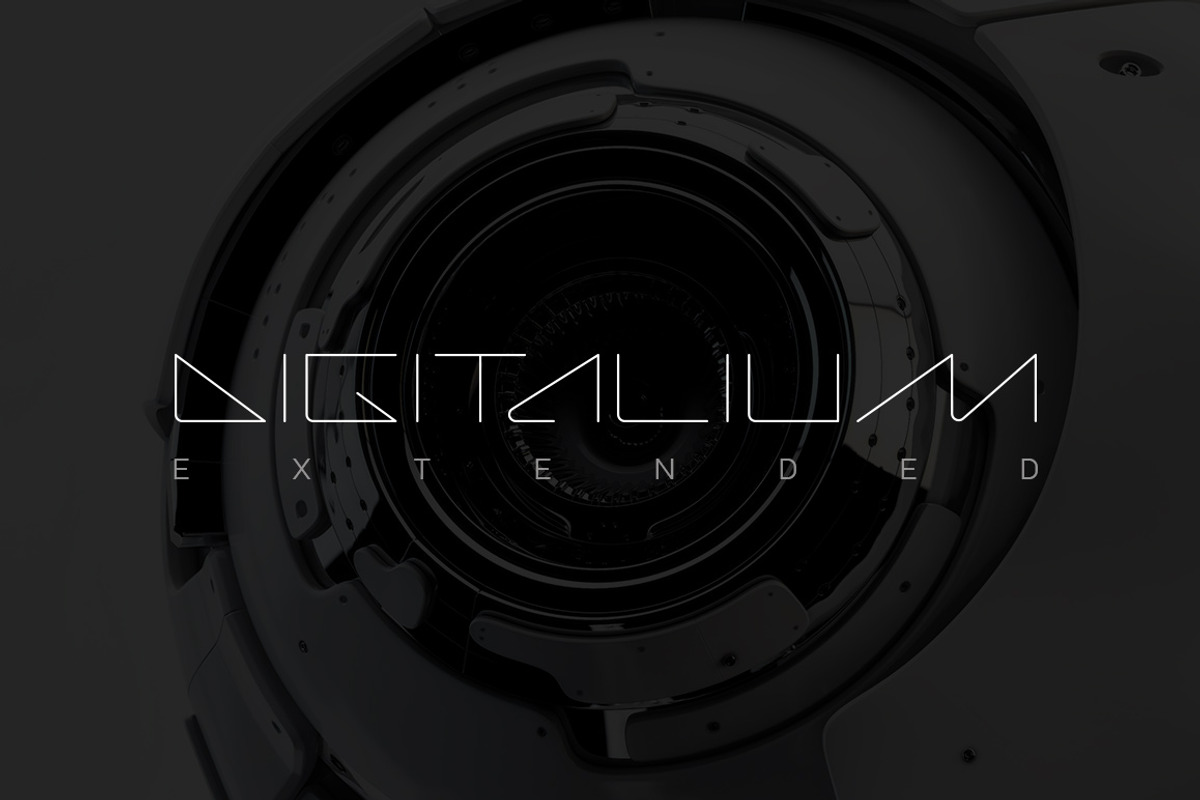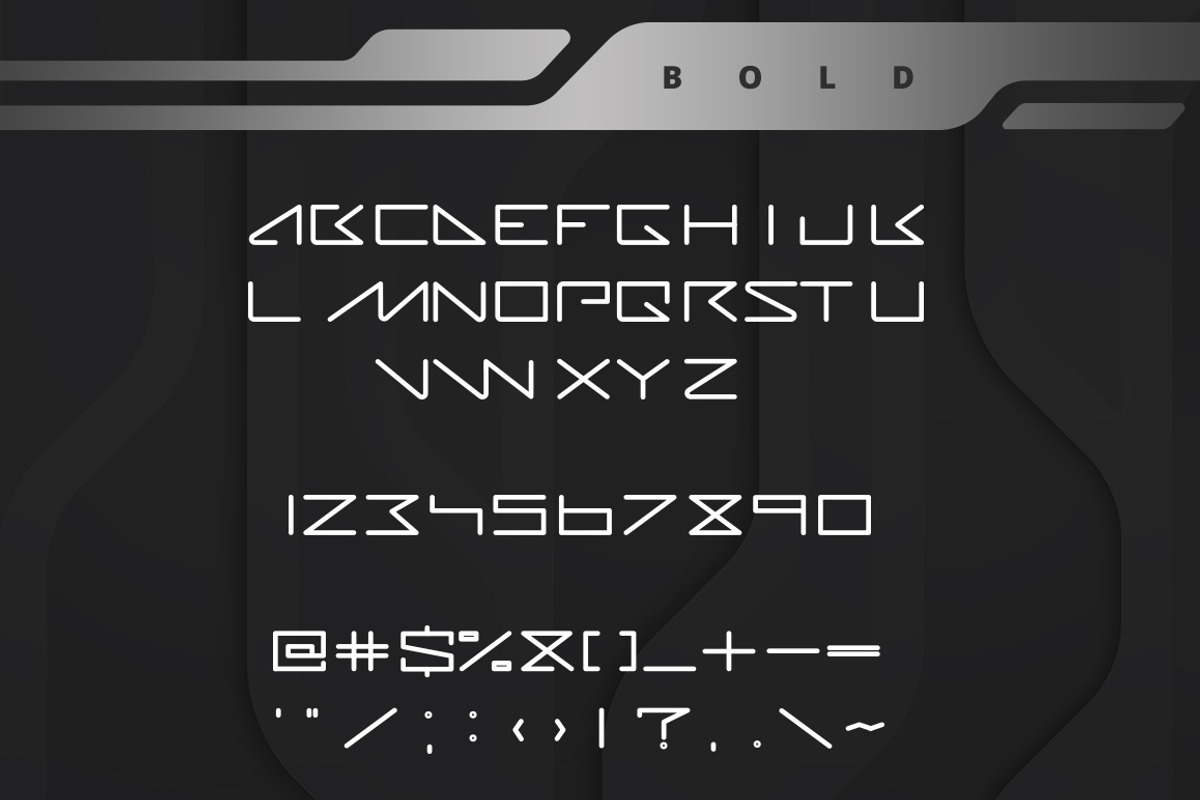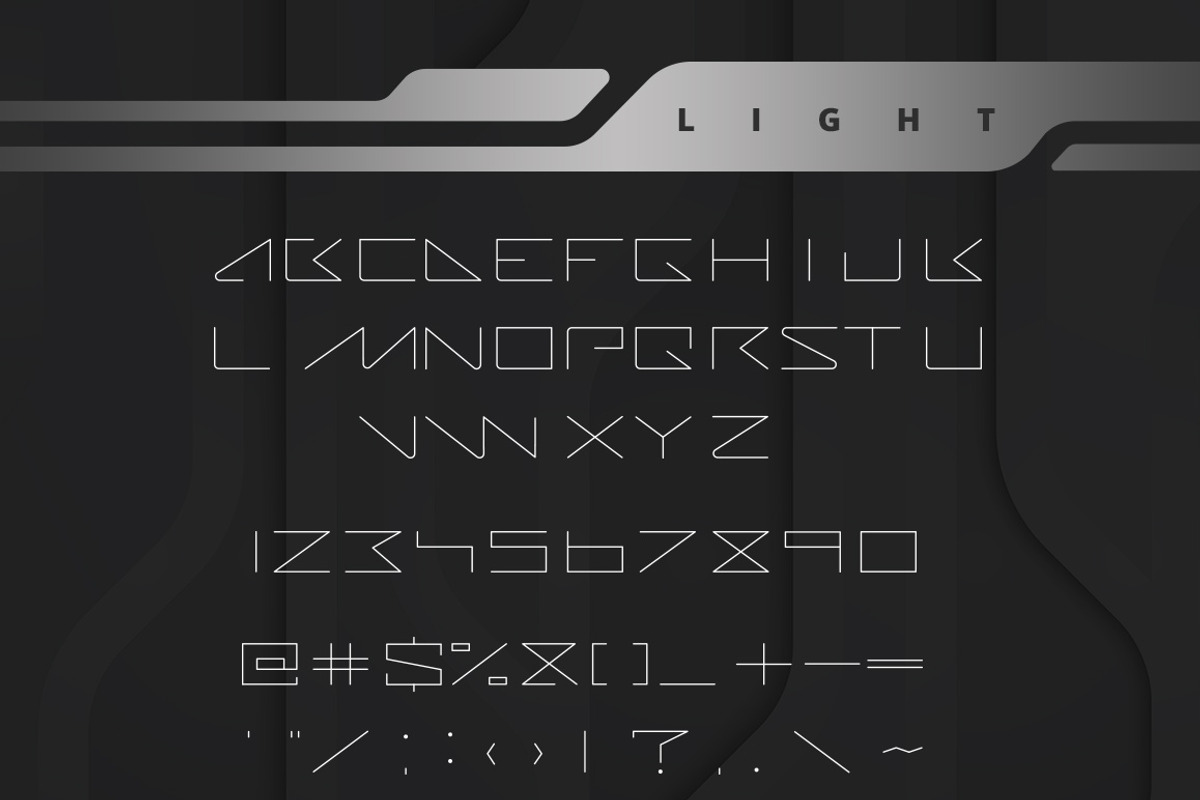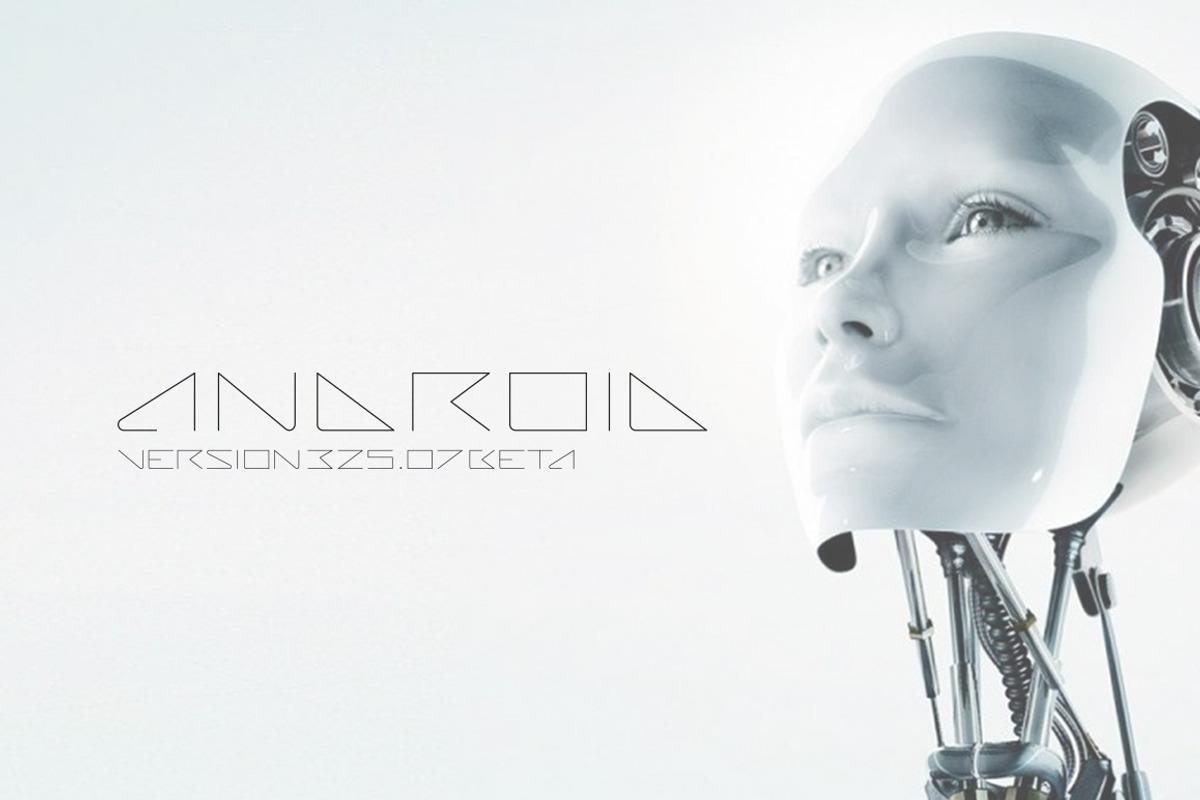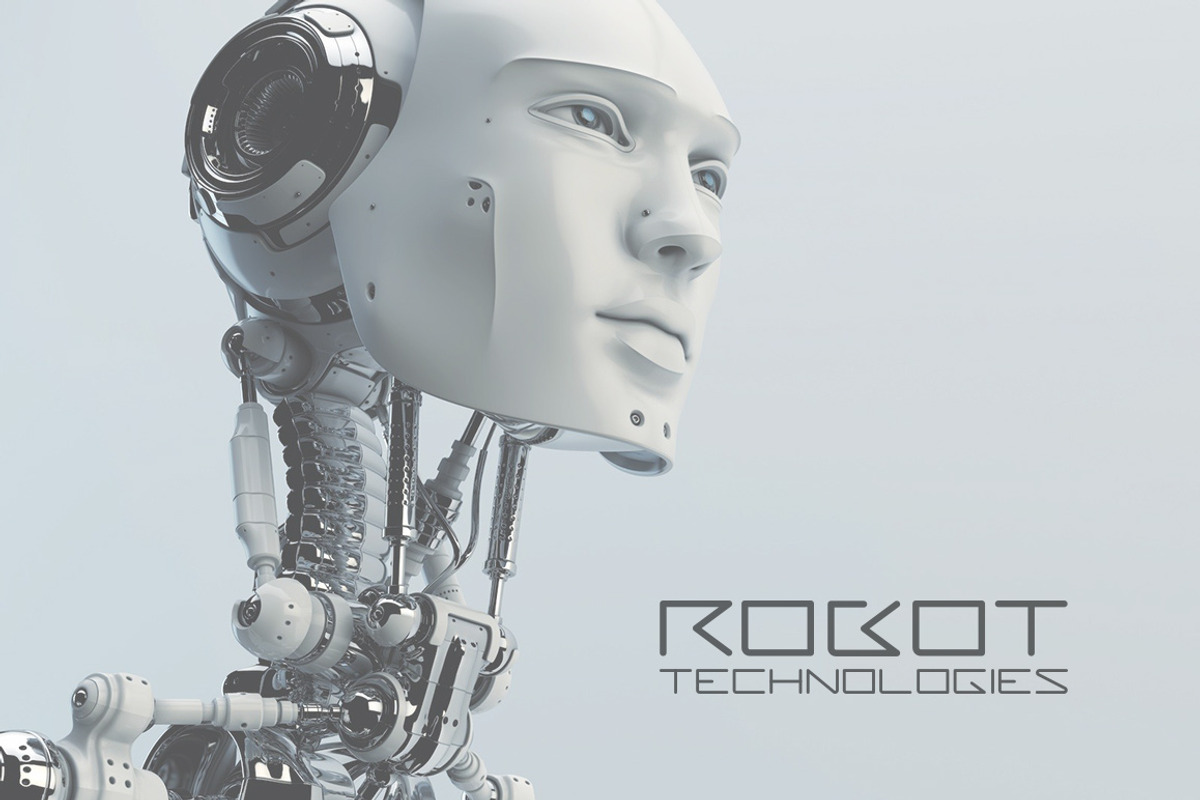
Digitalium Future Web Font
Digitalium Future Web Font by Sentavio is a font selected for branding, posters, packaging, typography.
- Digitalium Extended Light
- Digitalium Extended Bold
Why Digitalium Future Web Font is worth a look
Digitalium Future Web Font by Sentavio fits naturally into Branding, posters, packaging, typography.